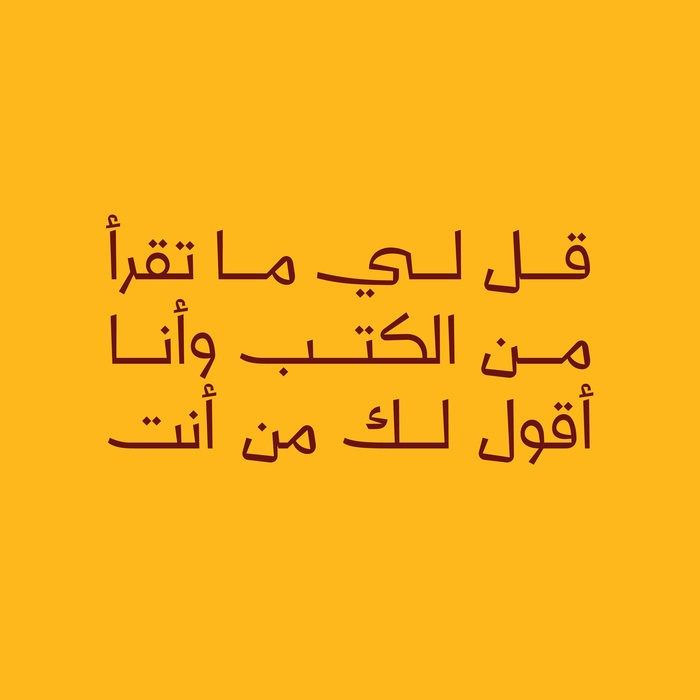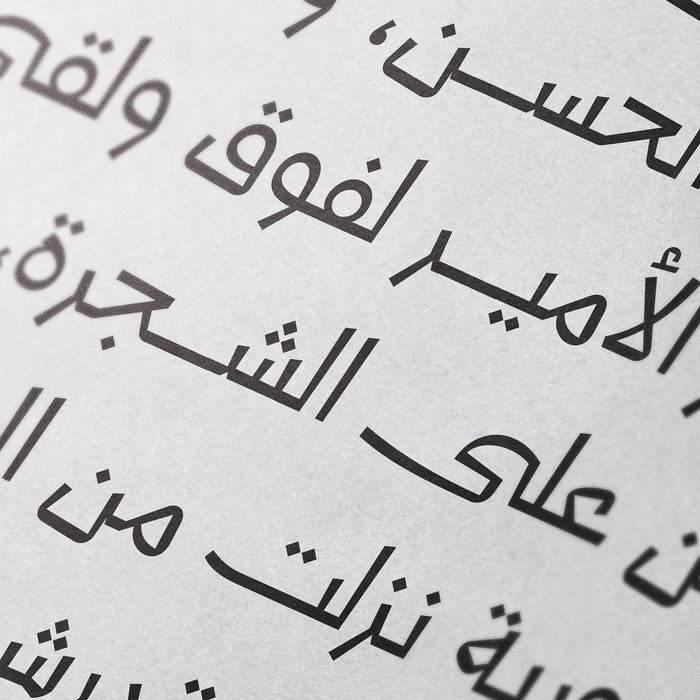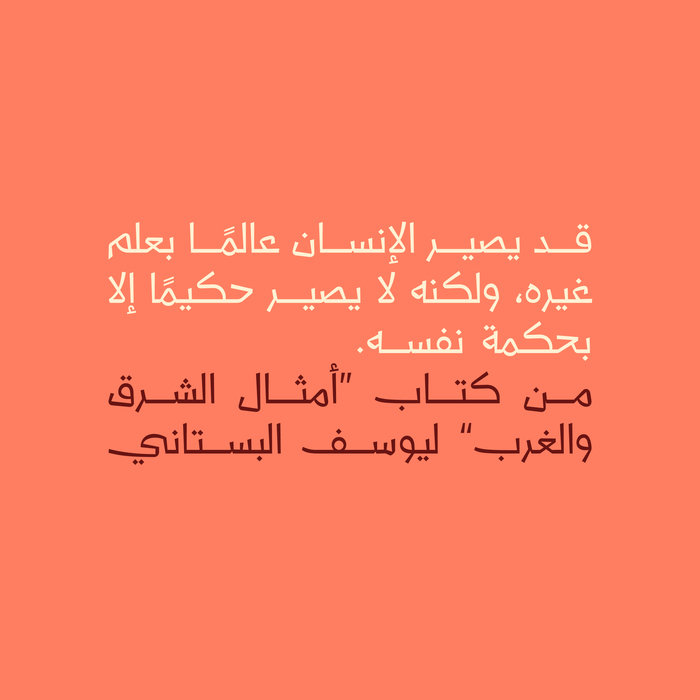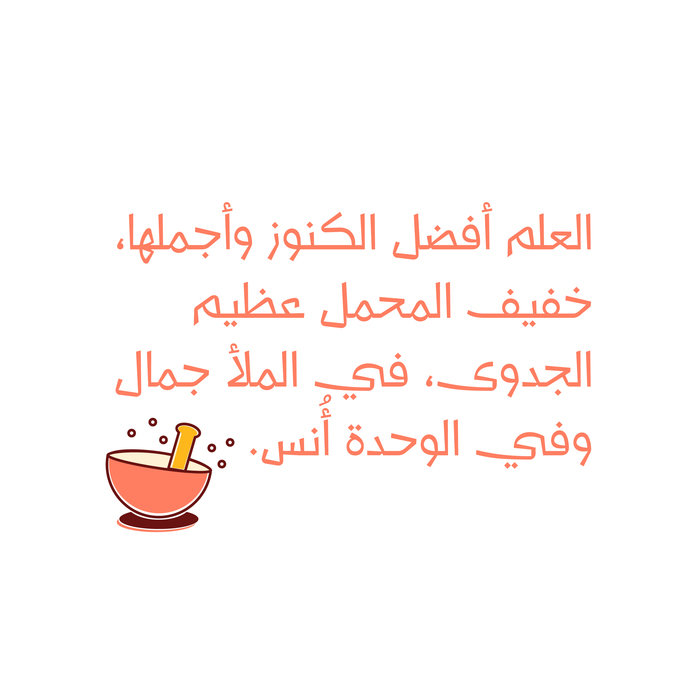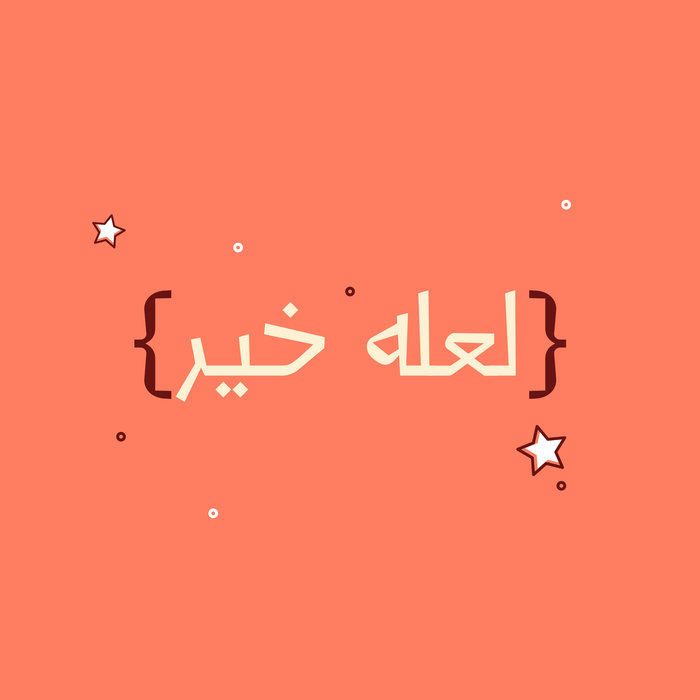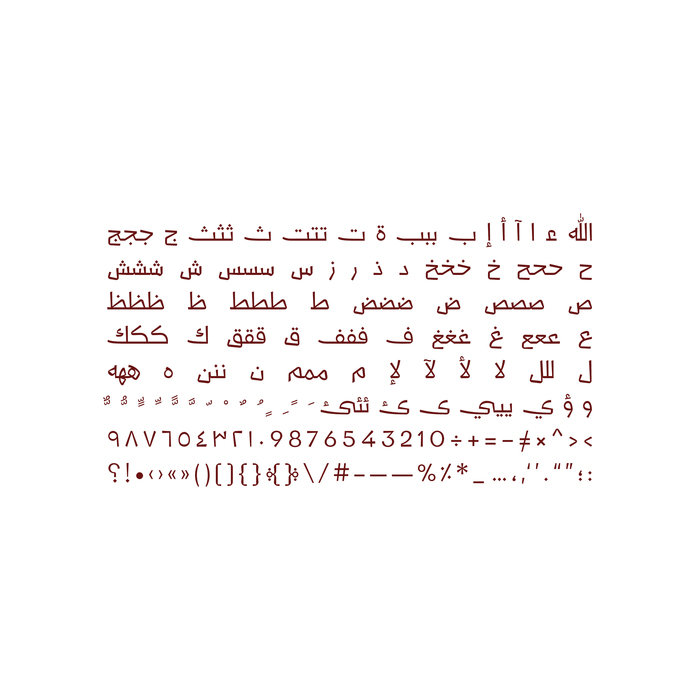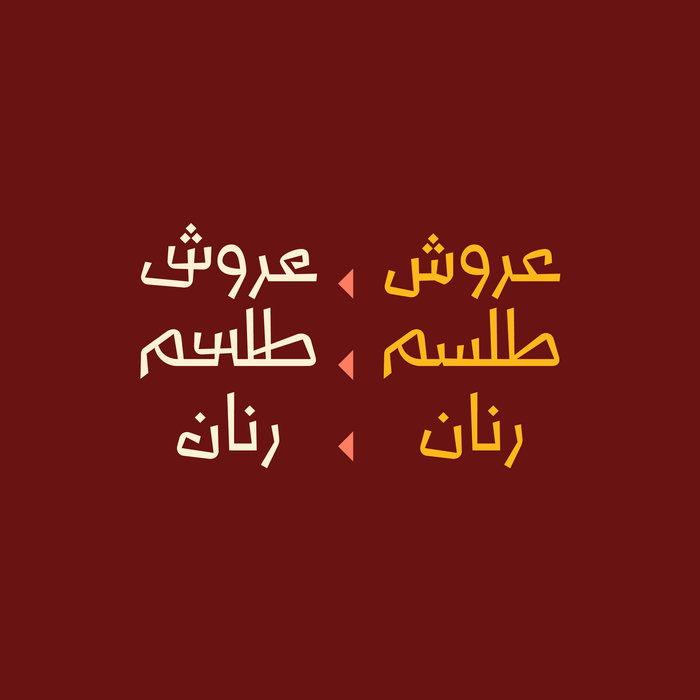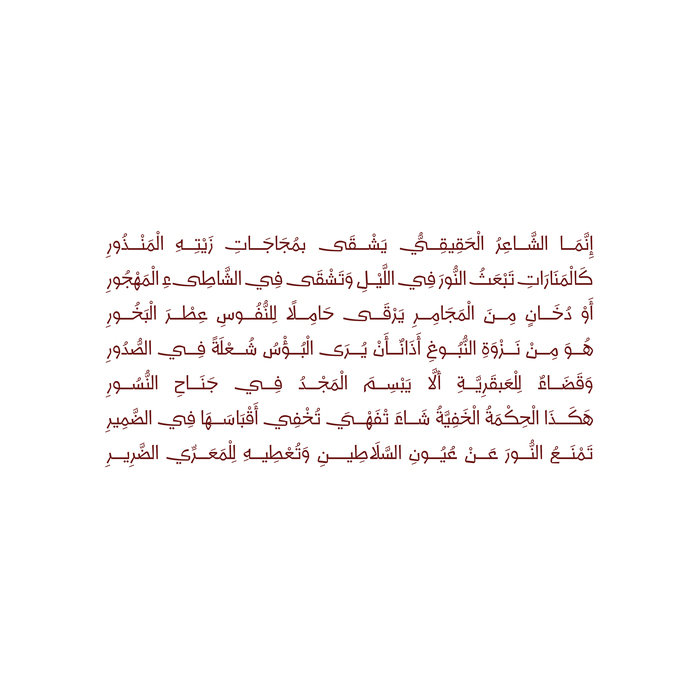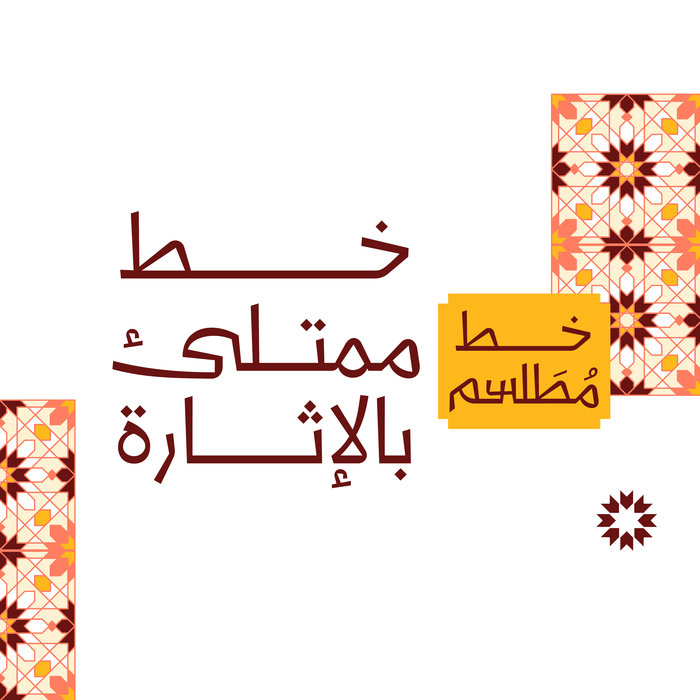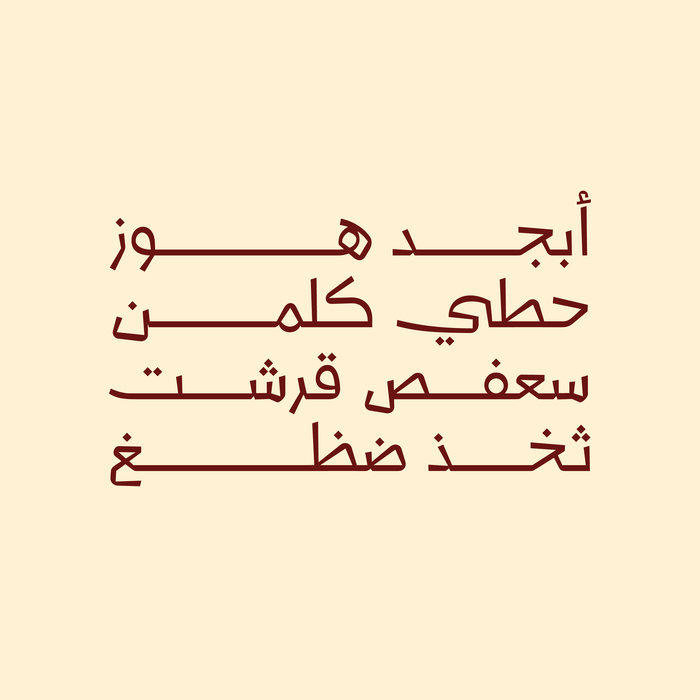
Talasem - Arabic Font
Talasem (which is the Arabic word for Talismans) is an Arabic display font that features a contemporary design. It also features a stylistic set of glyphs with an extraordinary letterform style that conveys both puzzling and mysterious impressions! Talasem suits a various range of modern projects including web, print and mobile applications.